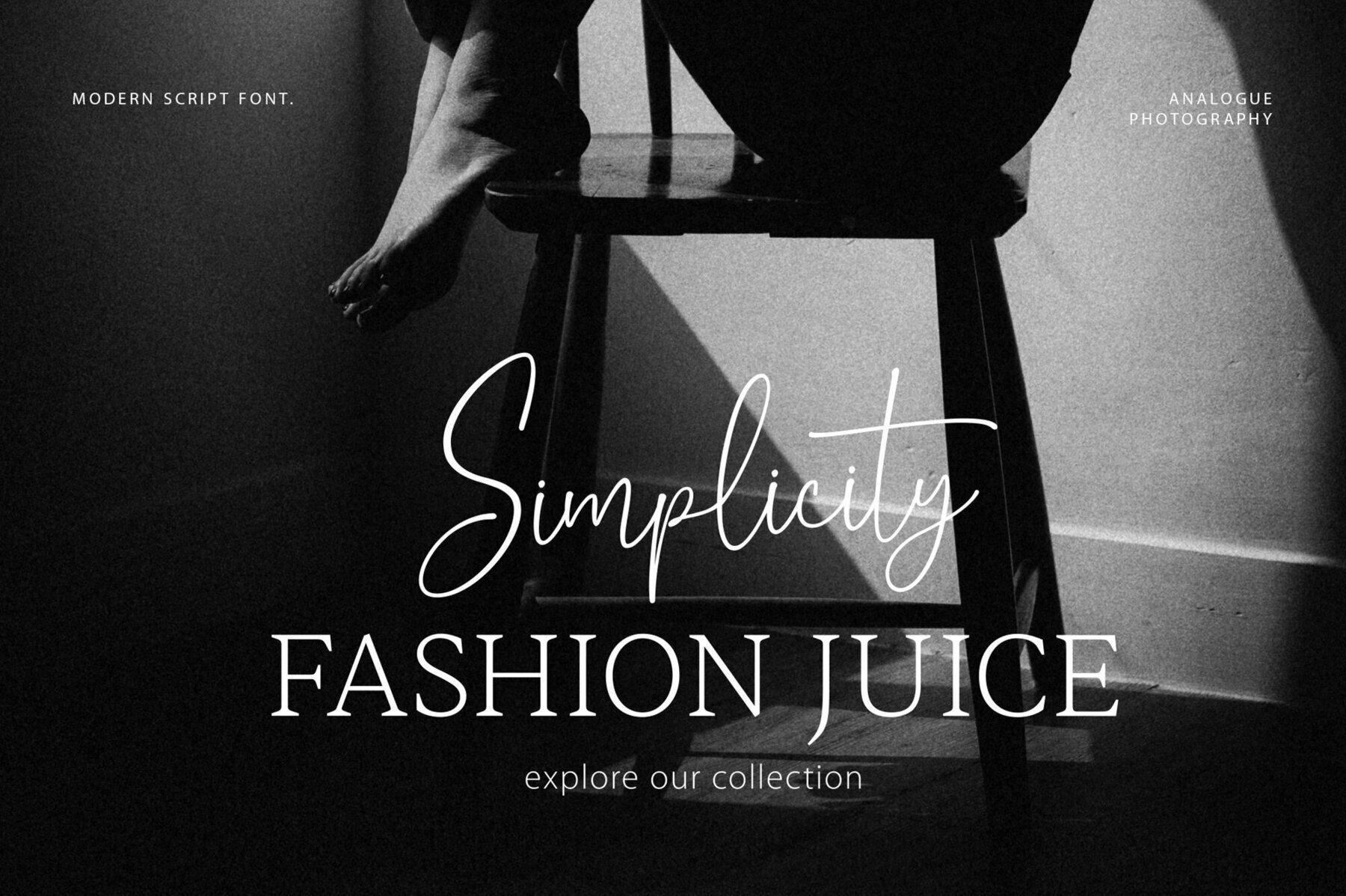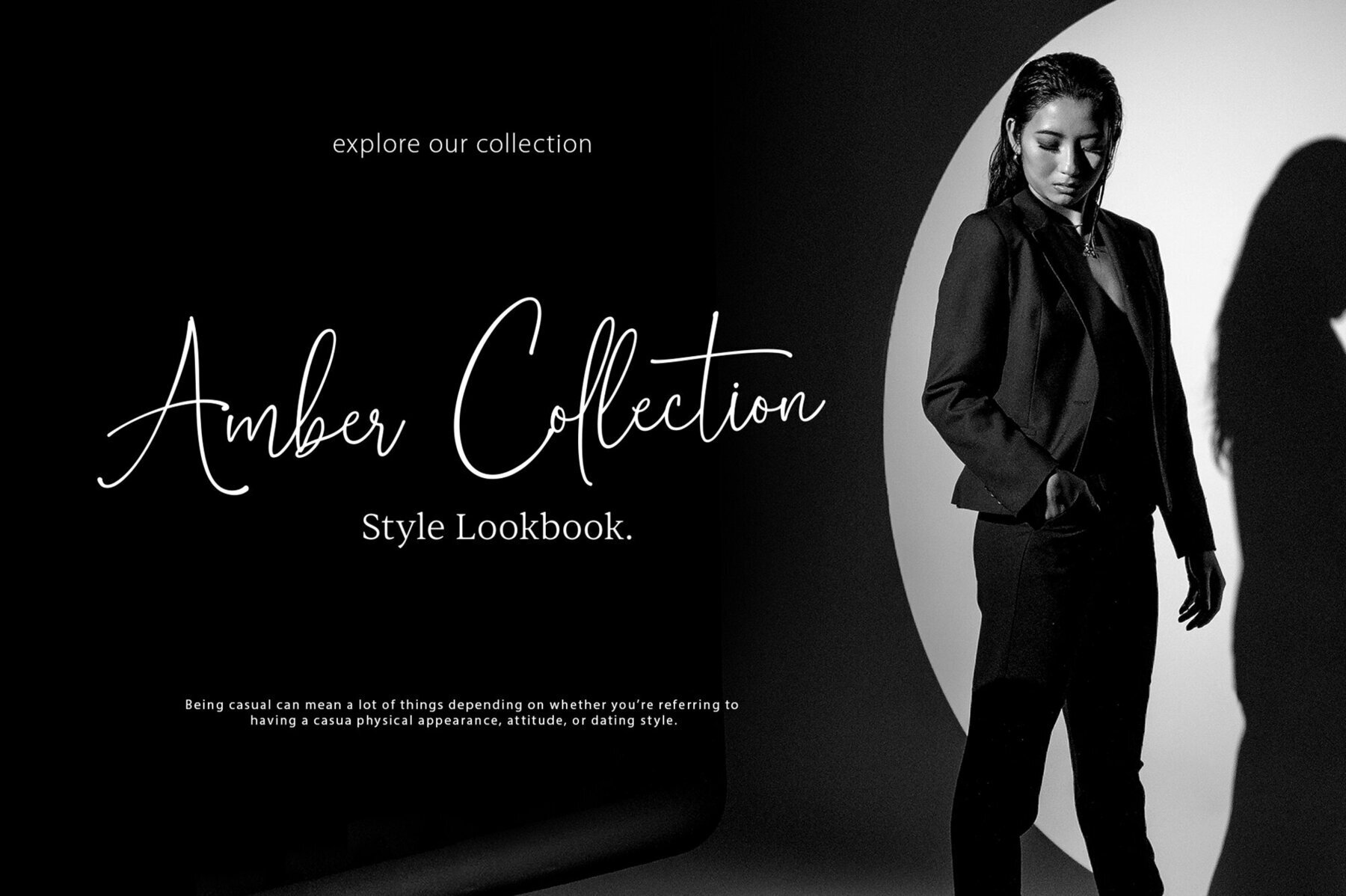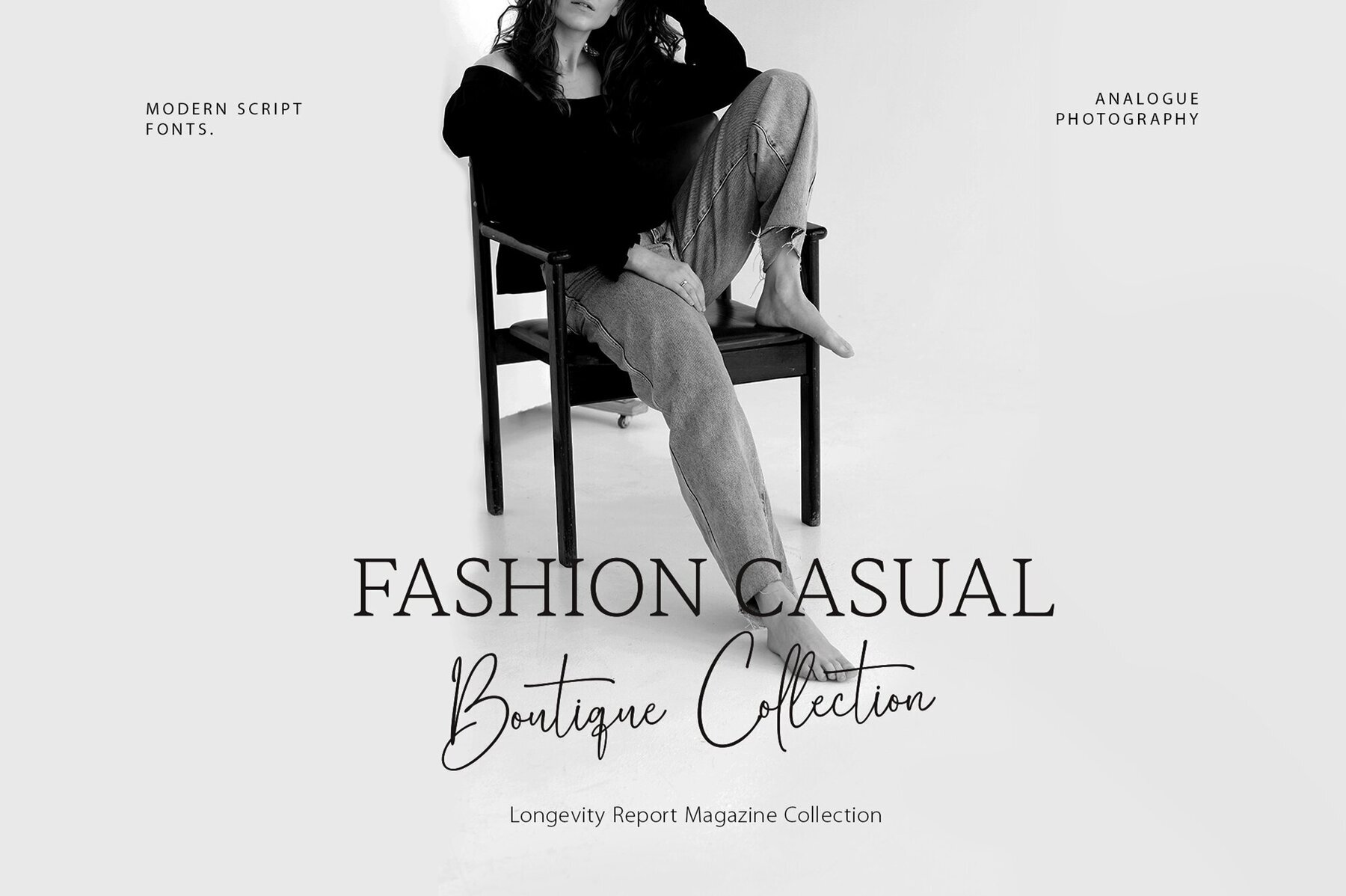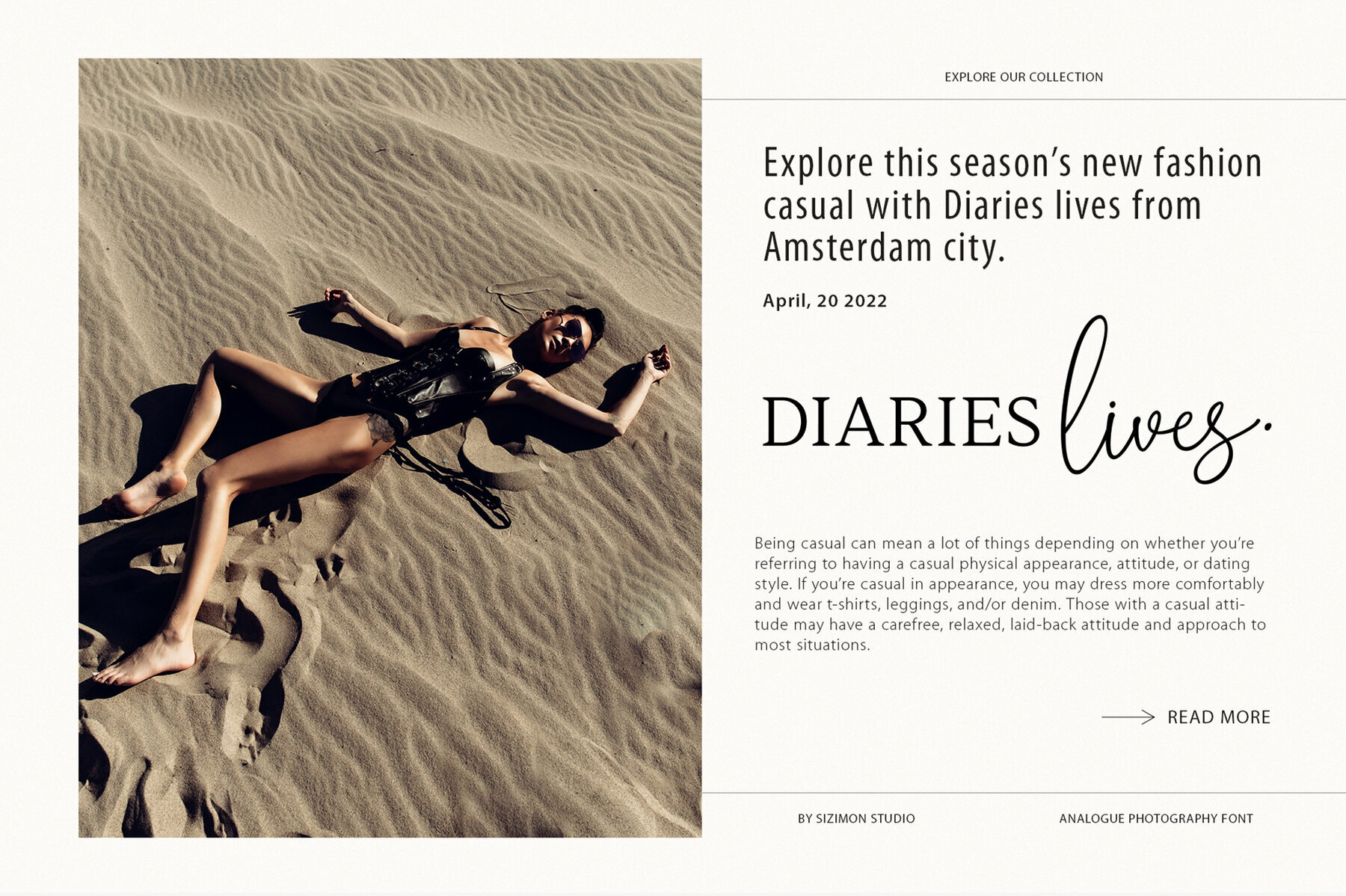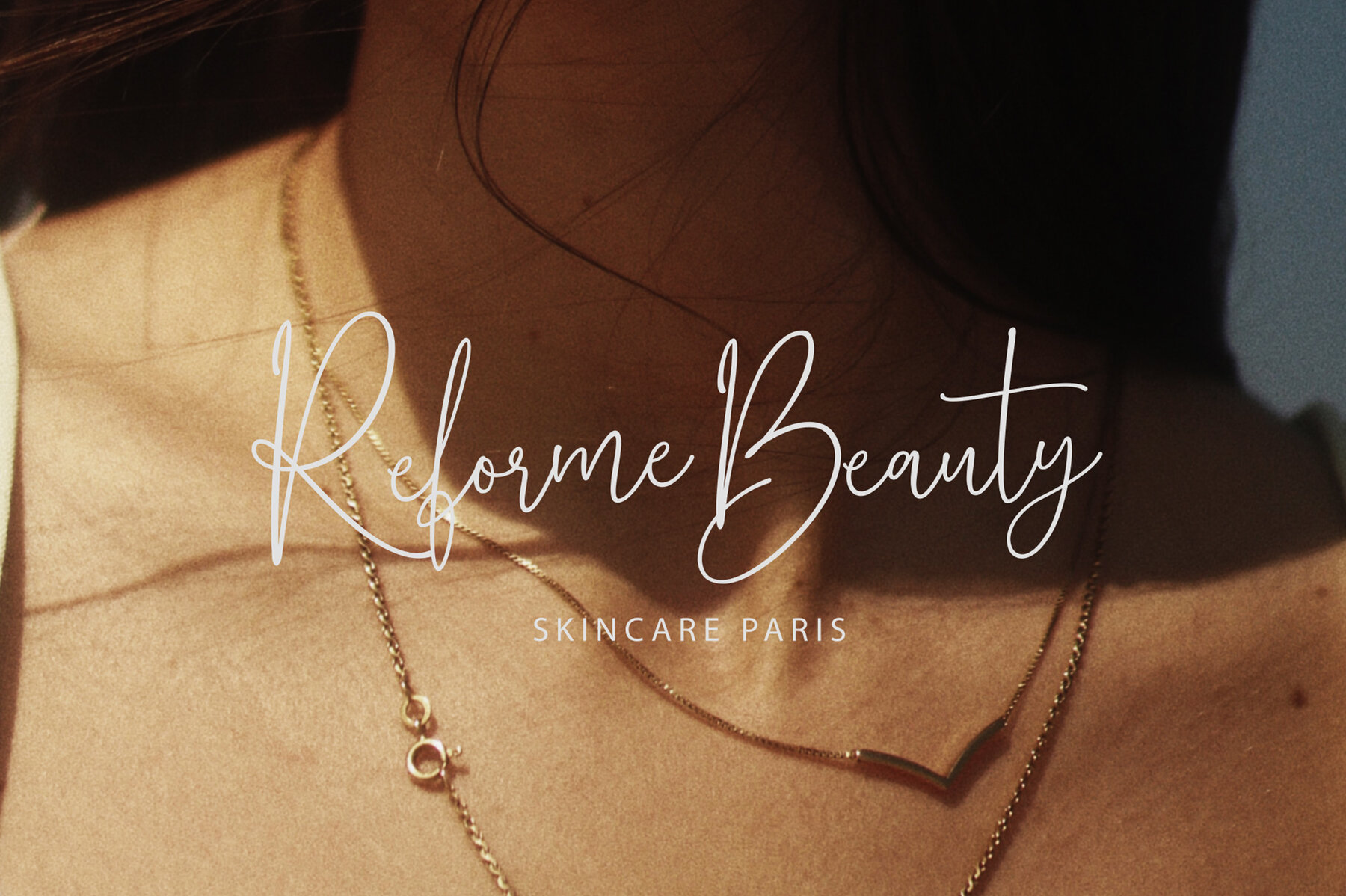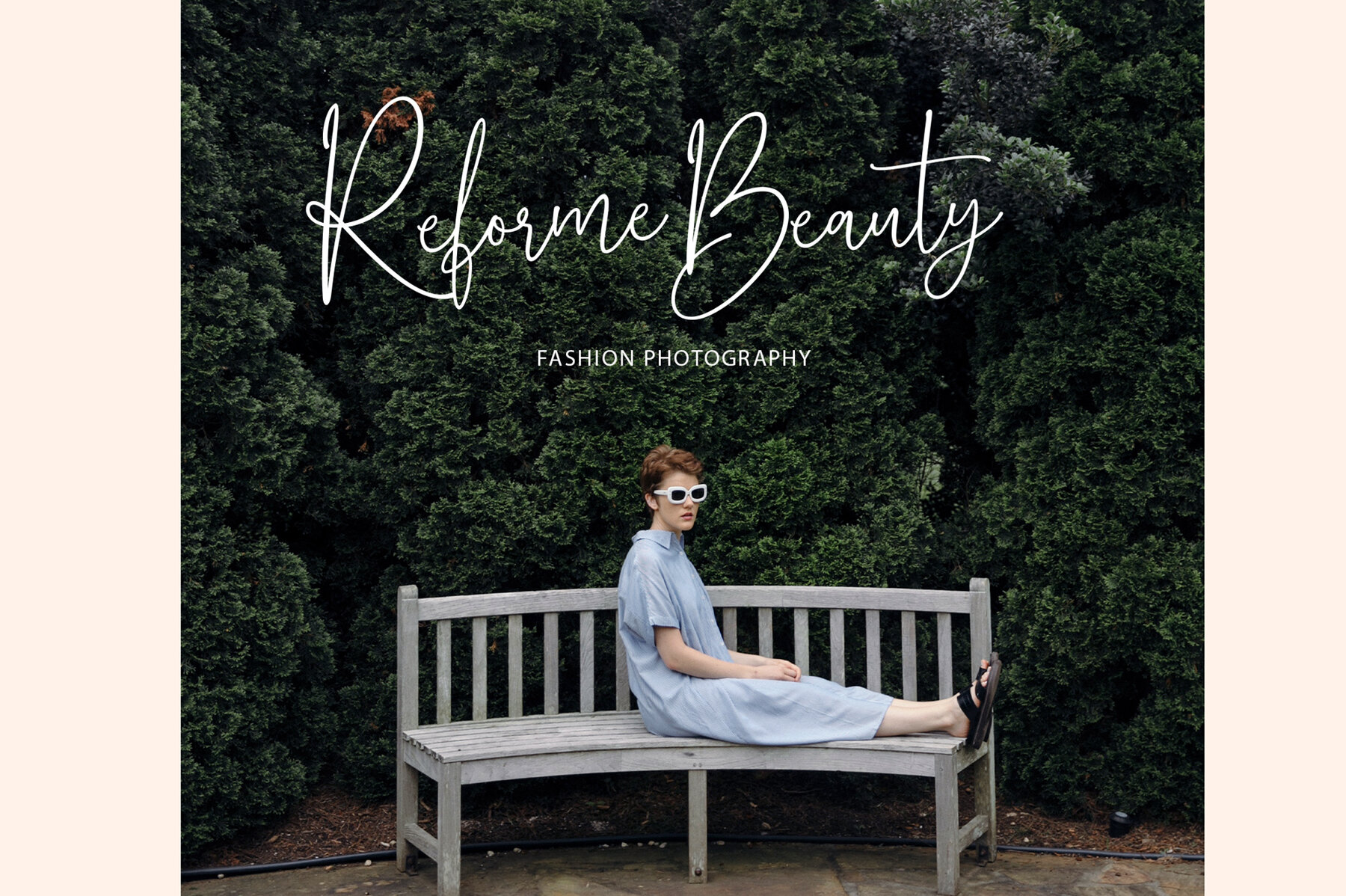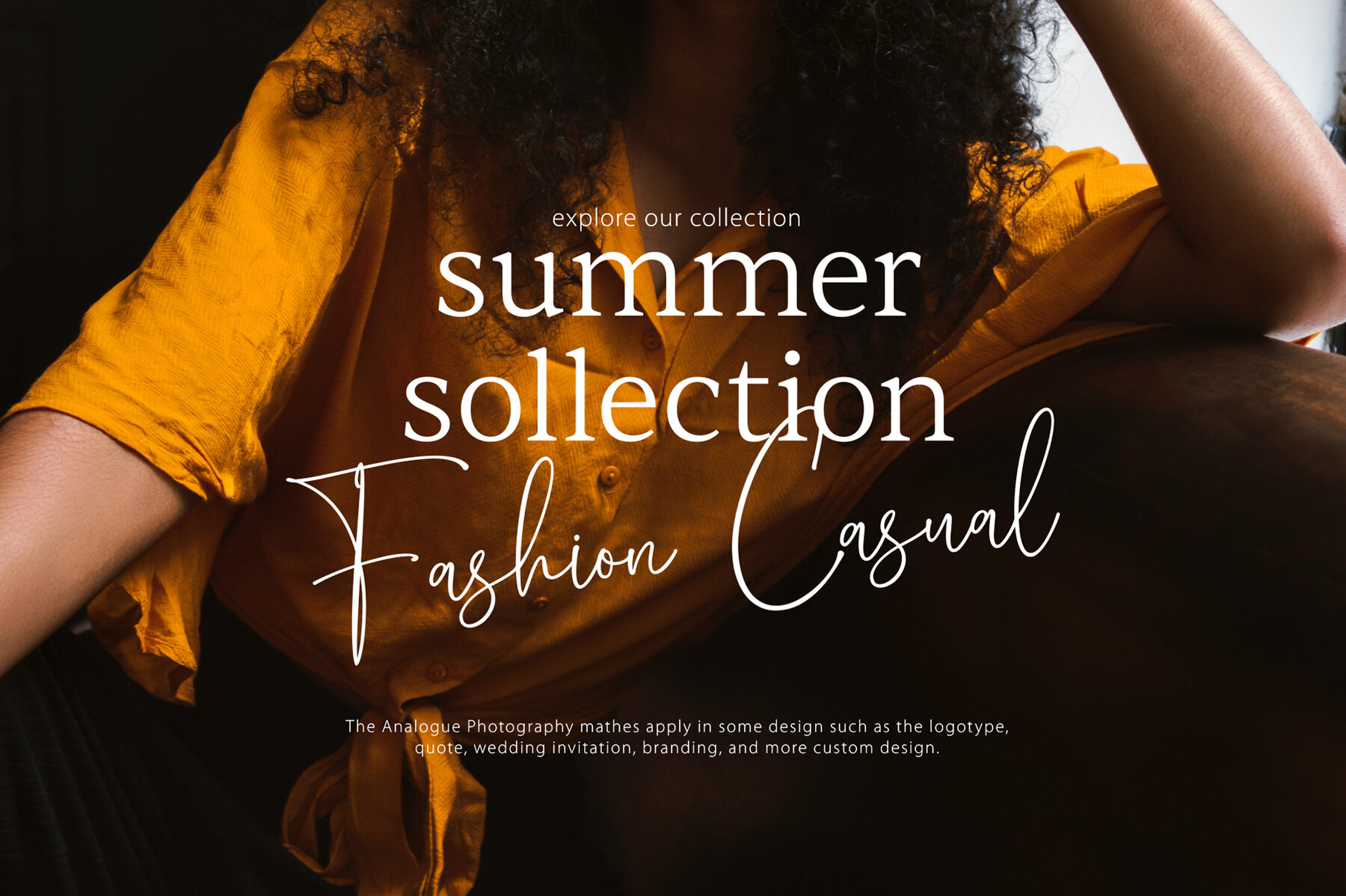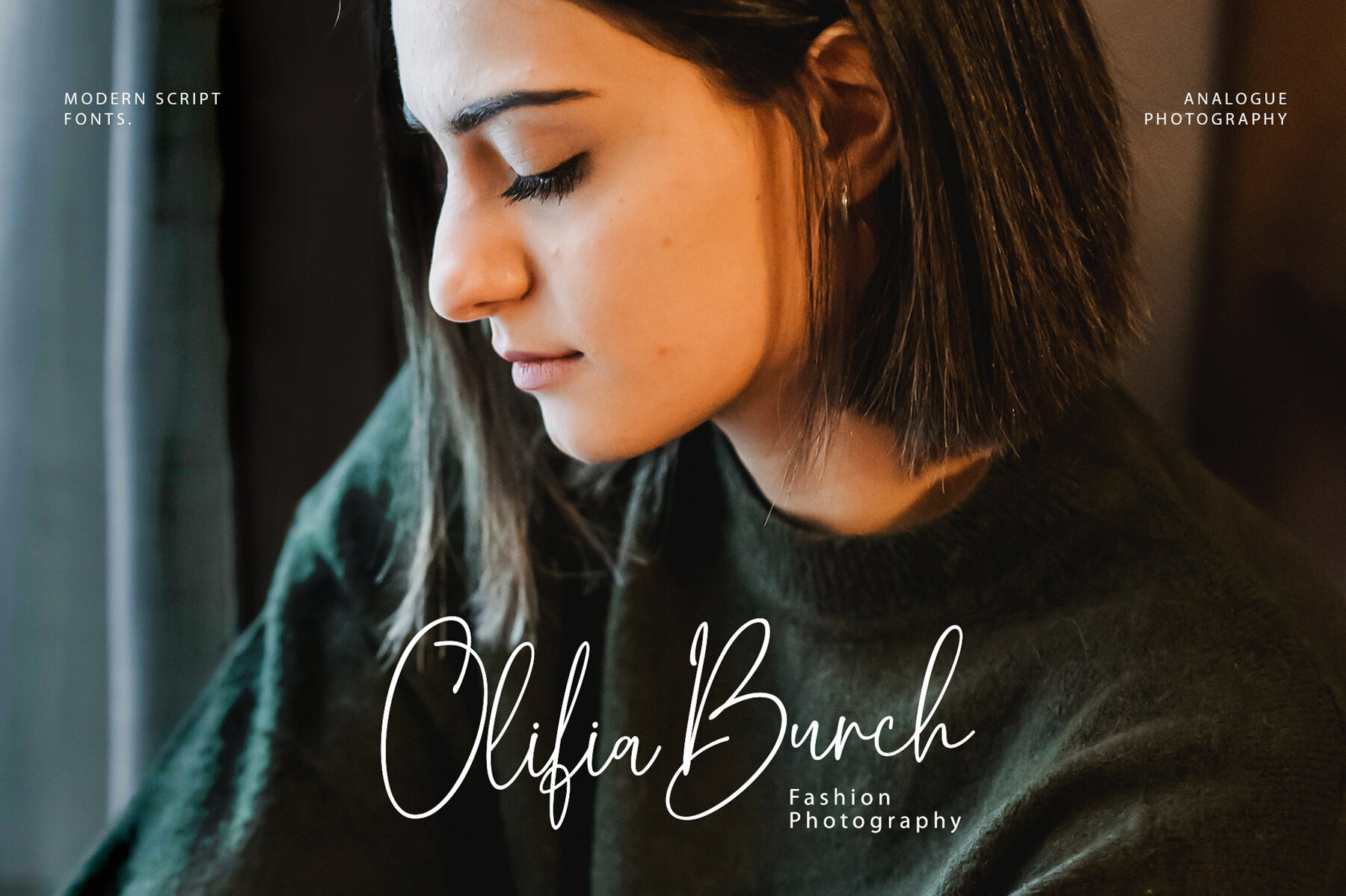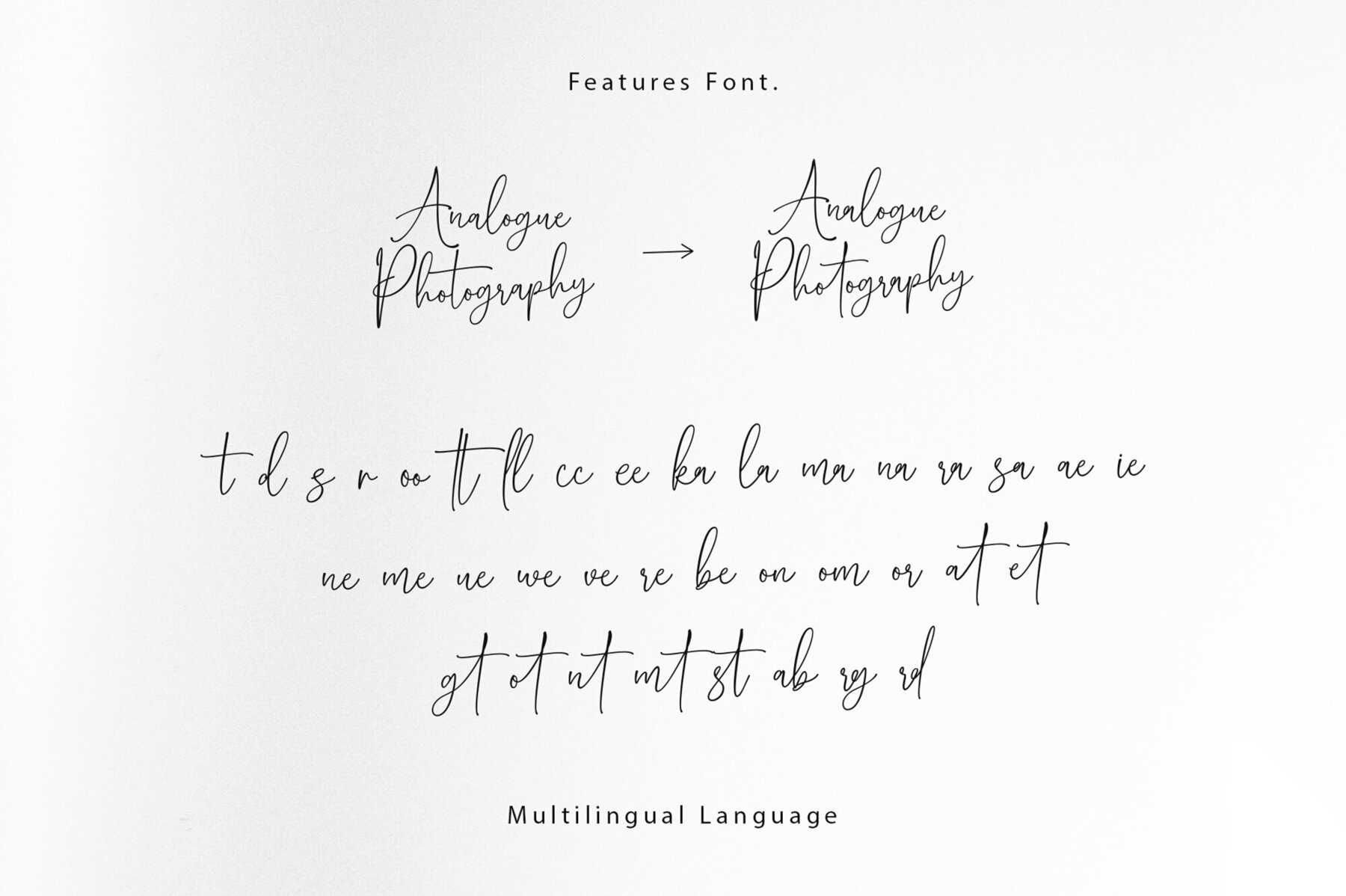
Analogue Photography Font
Analogue Photography
The Analogue Photography font is a modern and stylish hand-crafted typeface that can be used in many different designs. The casual yet elegant theme of this wonderful design will give your brand an authentic vintage feel without having to spend too much money on it!